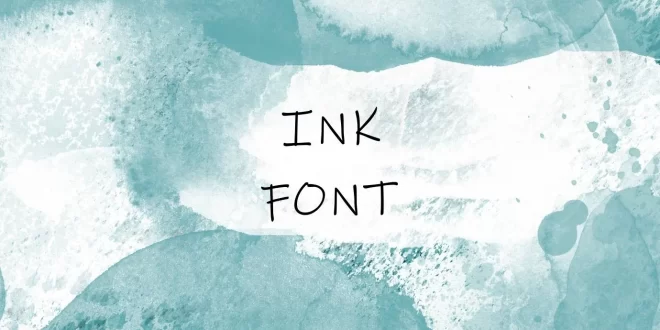
Ink presents as a relaxed, retro-inspired handwritten font family, available in four variations: regular, bold, italic, and condensed. Its uneven alignments and sporadic linkages make it an excellent choice for lending an organic touch to design projects. This remarkable font was both designed and introduced by Mr. Steve Matteson. Its popularity in the font market … Continue reading Ink Font Family Free Download